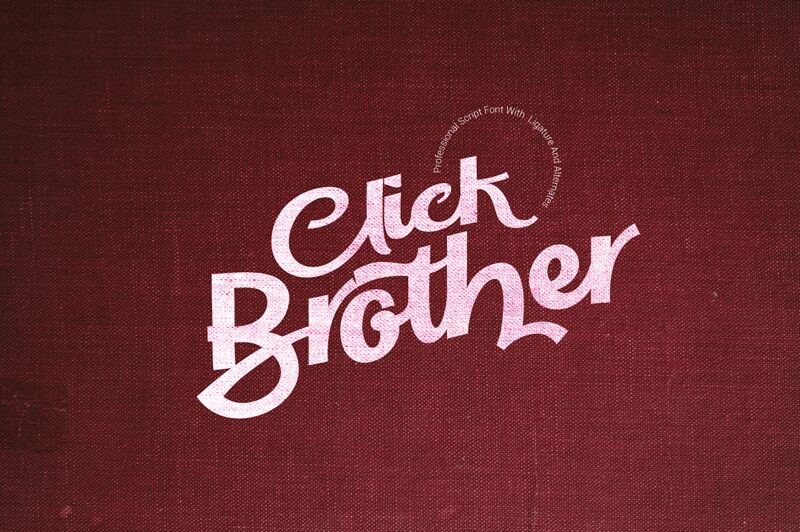
Click Brother by Grontype is a bold script font that brings a fun and playful vibe to any project. Its thick strokes and fluid lettering make it perfect for designs that need to grab attention, such as logos, social media graphics, and event invitations. The script style of the font adds an elegant touch to wedding stationery, while the bold weight makes it suitable for posters and headlines. With Click Brother, your projects will stand out from the crowd with its unique and eye-catching design. Try it out today!
Click Brother